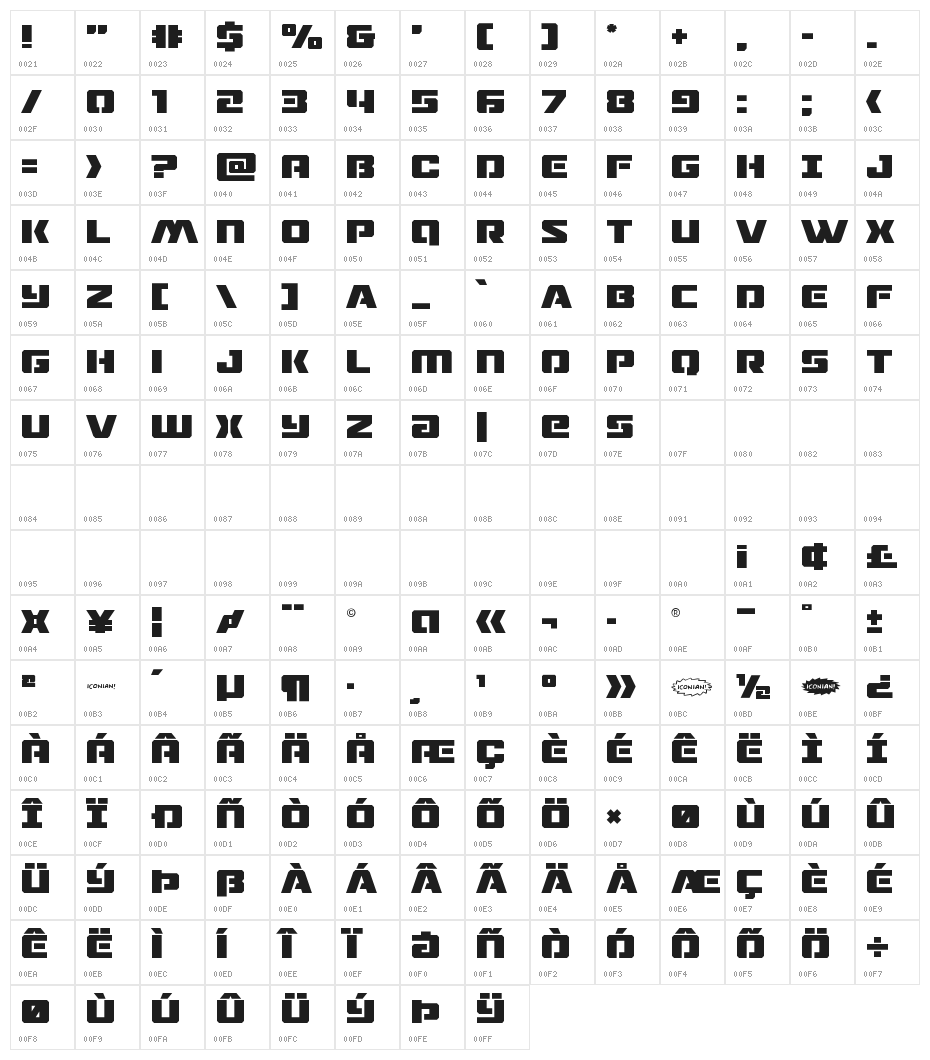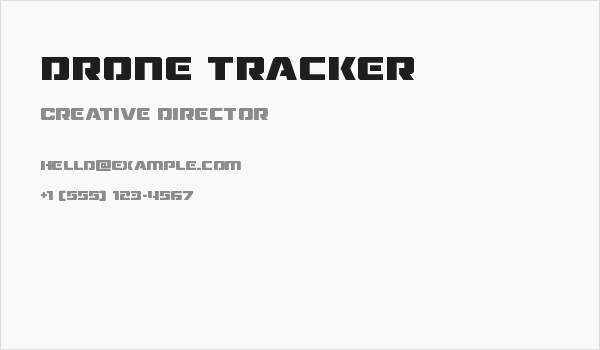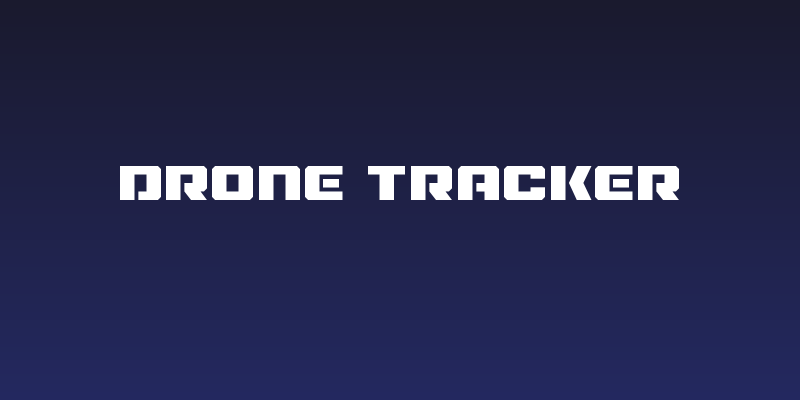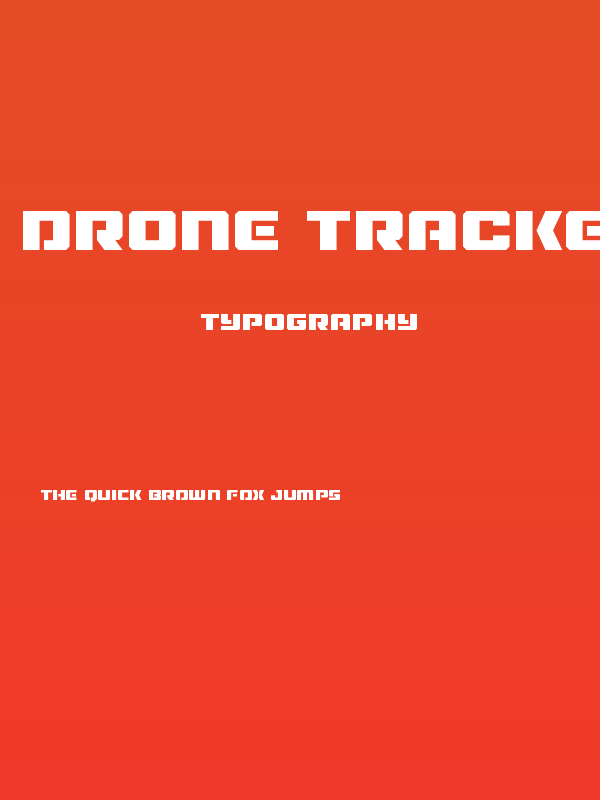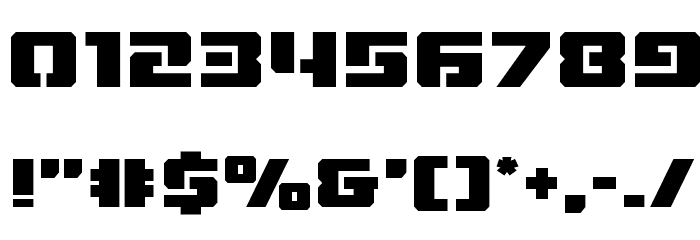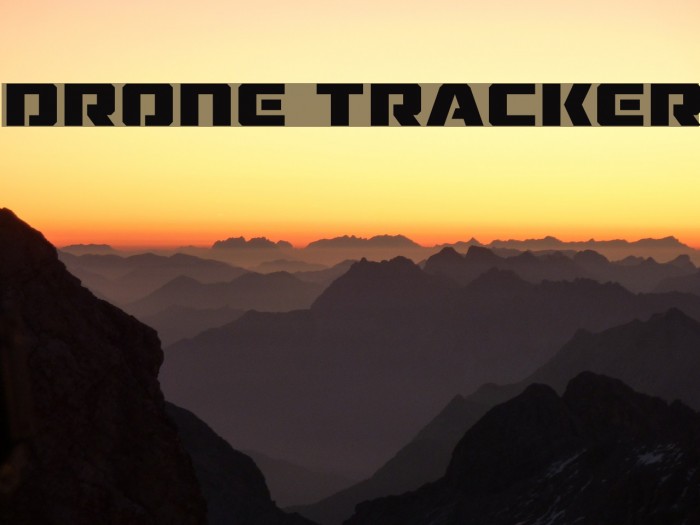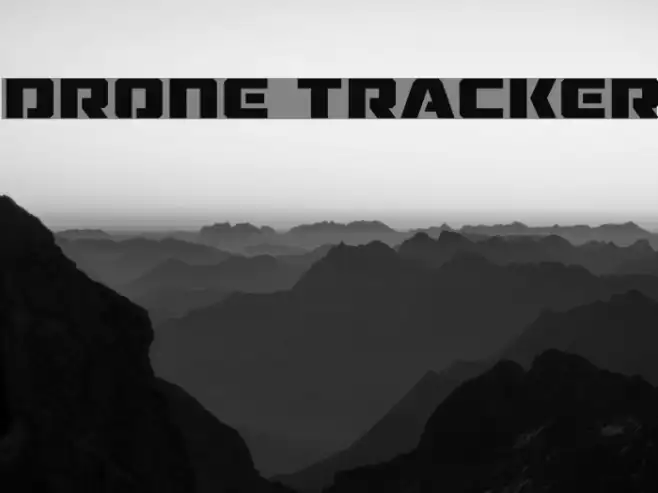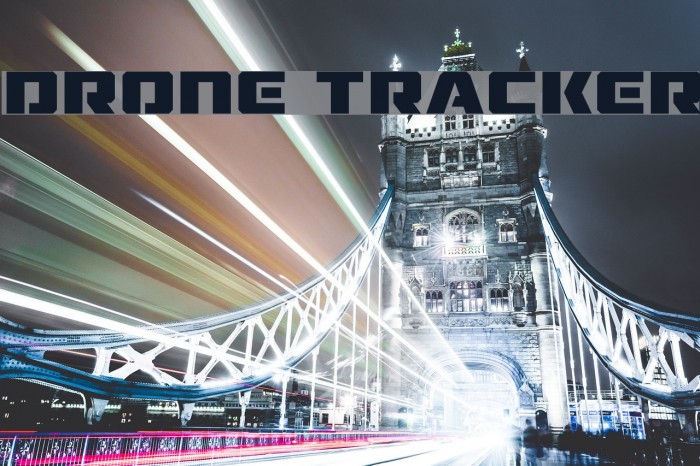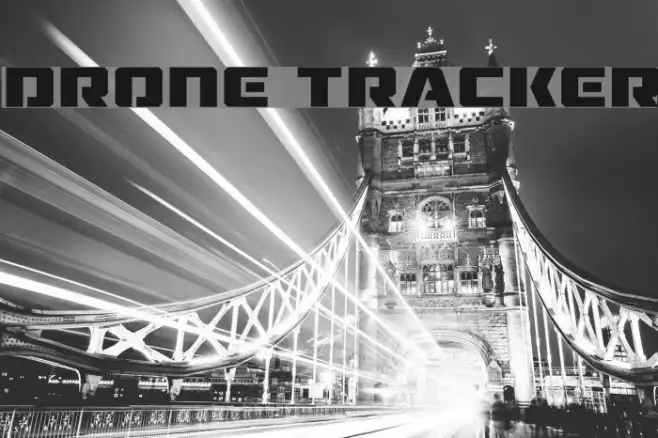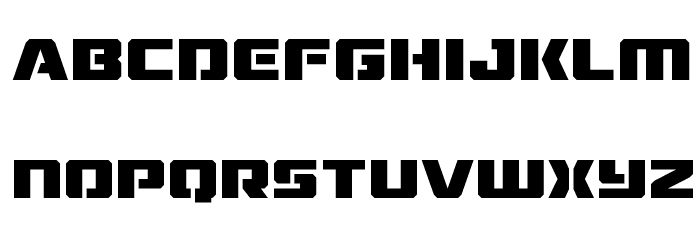
Drone Tracker Font
Drone Tracker Description
This font features a bold, geometric design with a futuristic and industrial feel. The characters are constructed with sharp angles and straight lines, creating a sense of strength and modernity. The uppercase letters are uniform in height, while the lowercase letters maintain a consistent style, adding to the cohesive look. Numbers and special characters follow the same design principles, ensuring a comprehensive and versatile typeface. The font's distinct appearance makes it suitable for projects that require a strong visual impact.
| Proposed Projects | Ideal for technology branding, video game titles, sci-fi movie posters, and industrial-themed designs. |